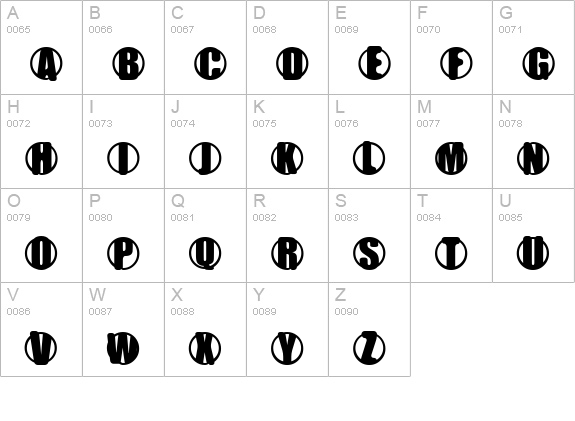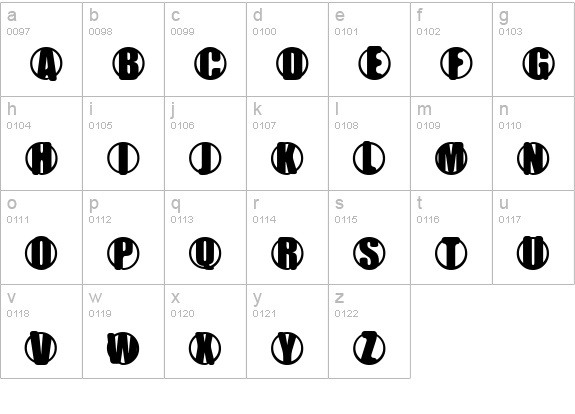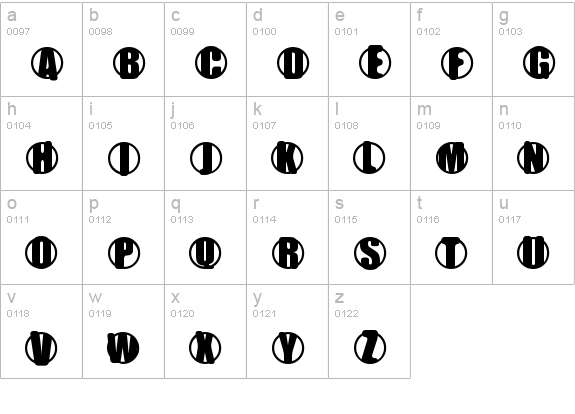
YChrome Mutant Font Details
YChrome Mutant font is a unique and eye-catching typeface that is sure to make your designs stand out. With its futuristic and edgy appearance, this font exudes a sense of innovation and creativity. The bold and angular letterforms of YChrome Mutant give it a modern and dynamic feel, making it perfect for projects that require a touch of avant-garde style. The best part about YChrome Mutant font is that it is completely free to download at FontsMarket.com. This means that you can easily access this striking font and use it in your projects without any cost. Whether you're working on graphic design, branding, or any other creative endeavor, YChrome Mutant font will add a unique and captivating element to your work. Don't miss out on this opportunity to enhance your designs with the bold and futuristic look of YChrome Mutant font. Download it for free today at FontsMarket.com and take your projects to the next level.